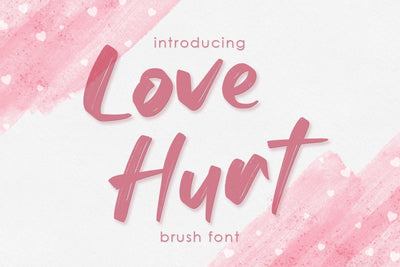
Love Hurt | Brush Font
Introducing our new font " Love Hurt " , Made with naturally brush. The font will make your design more beautiful and powerful. This font is suitable for any design like branding, packaging, invitation, apparel, quotes, t-shirt printing and etc. I hope you enjoy it !!
- Numerals and Punctuations